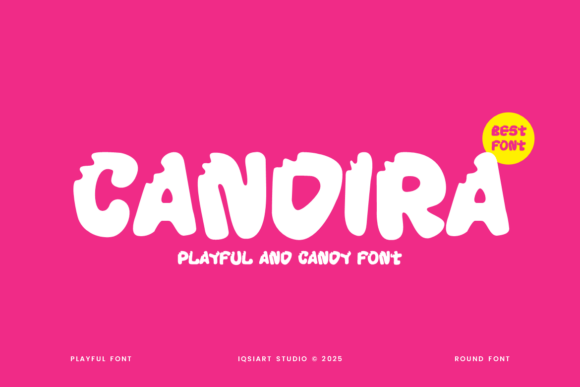
The Sweetest Font You’ll Ever Use: A Deep Dive into Candira
I’ll never forget the time I was working on a project for a children’s party invitation. My client wanted something fun, playful, and utterly charming. I scoured the internet for the perfect font, but nothing seemed quite right. That was until I stumbled upon Candira – a bold, bouncy, and irresistibly sweet display font that captured the fun of candy and childhood. In this article, I’ll share my love for Candira, its features, and how to make the most of it in your designs.
My Honest Review of Candira
Candira has quickly become one of my go-to fonts for any project that needs a touch of sugary charm. Here’s what I love about it:
- ✨ Unique and playful design: Candira’s thick, squishy letterforms and quirky style make it perfect for kids’ products, packaging, party invitations, and playful branding.
- ✅ Easily legible: Despite its playful nature, Candira is surprisingly easy to read, even in larger blocks of text.
- 💕 Emotional connection: Candira instantly evokes a sense of joy and nostalgia, making it perfect for projects that aim to bring a smile to people’s faces.
Of course, no font is perfect, and Candira has a few small quirks:
- 🤔 Limited use cases: While Candira is amazing for display text, it may not be the best choice for body text or more formal projects.
- ⚠️ Overuse can be overwhelming: Use Candira sparingly to avoid overwhelming your design with too much sugary sweetness.
The Story Behind Candira
Candira was designed by a team of creatives who wanted to capture the magic of childhood and the joy of candy. Inspired by vintage candy advertisements and childhood memories, Candira is a font that’s sure to bring a smile to people’s faces. Whether you’re designing for kids or simply want to add some whimsy to your project, Candira is the perfect choice.
| What is Candira best used for? | Candira is perfect for kids’ products, packaging, party invitations, playful branding, and anything that needs a touch of sugary charm. |
| Is Candira easy to read? | Yes, despite its playful nature, Candira is surprisingly easy to read, even in larger blocks of text. |
| Does Candira support OpenType features? | Yes, Candira supports OpenType features, including stylistic alternates and glyphs. |